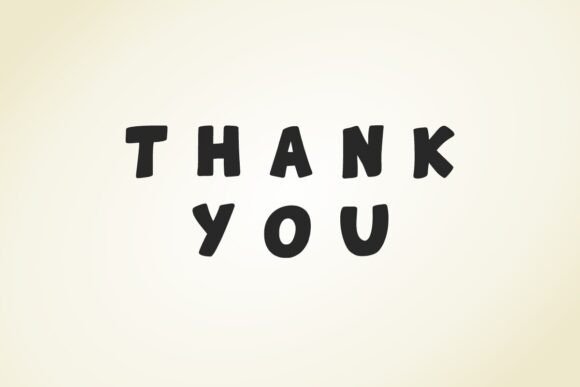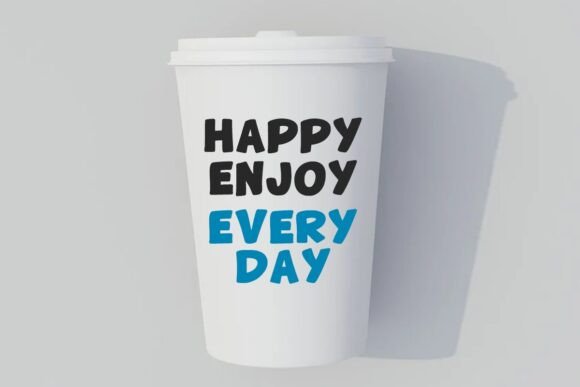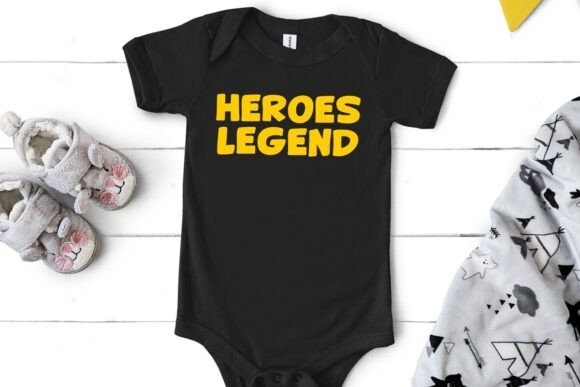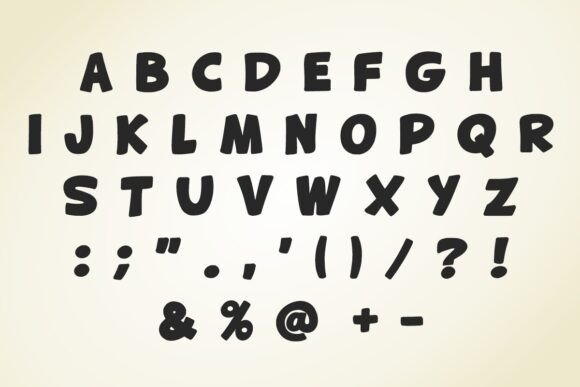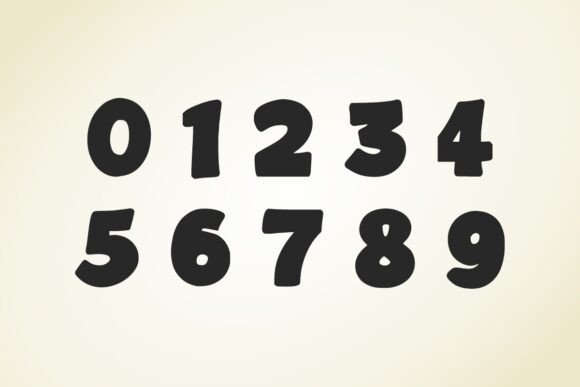
Introduction to Jonny Shark Font
Remember that moment when you’re brainstorming ideas for a creative project, and you stumble upon the perfect font that instantly elevates your design? For many designers, this moment is a game-changer. It’s the spark that ignites inspiration and sets the tone for a visually stunning outcome.
Today, we’re excited to introduce you to Jonny Shark Font, a free download that’s about to become your new go-to design resource. This charming, easy-to-read display font is perfect for adding a touch of friendliness to your digital designs, from greeting cards to presentations.
With its transparent background and high-quality design, Jonny Shark Font is a valuable asset for designers looking to add a personal touch to their creative projects. Whether you’re a seasoned pro or a design newbie, this font is sure to delight and inspire you to new heights.
Key Features of Jonny Shark Font
- Unique and playful design, ideal for creative projects and personal use.
- High-quality font, available for free download with a transparent background.
- Perfect for designers, artists, and writers seeking a distinctive font for their creative projects.
- Jonny Shark Font is a versatile design resource, suitable for various applications, including digital and print media.
Honest Review: Jonny Shark Font
As a designer, I’ve come across my fair share of fonts, but the Jonny Shark Font caught my attention. It’s a free download, which is always a bonus, but what really stands out is its high quality and unique design.
- ✨ Unique and creative design that adds a touch of personality to any project
- ✨ High-quality vector format that ensures crisp and clear lines
- ✨ Transparent background, making it easy to integrate with any design
- ⚠️ Limited character set, which may not be suitable for extensive creative projects
- ⚠️ Not ideal for text-heavy designs, as it can be difficult to read
Overall, I’m impressed with the Jonny Shark Font, but it’s essential to consider its limitations when deciding whether to use it for your design project. If you’re looking for a unique and creative resource to add a touch of personality to your work, this font is definitely worth exploring.
Jonny Shark Font is commonly used in creative projects such as logo design, infographics, and social media graphics. Its unique style makes it an excellent choice for designers looking for a high-quality design resource.